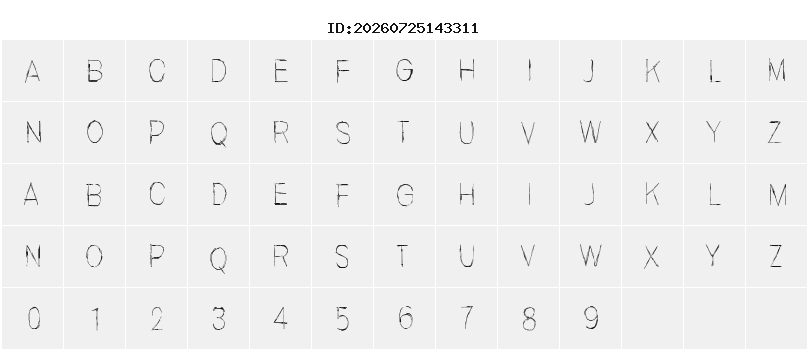
• Font Name: Invisiblerror, Edge
• Designer: junkohanhero
About Invisiblerror, Edge.ttf
Invisiblerror, Edge.ttf is a modern, elegant sans-serif font designed for ultimate readability and visual harmony. Perfect for branding, headlines, web design, and print materials.